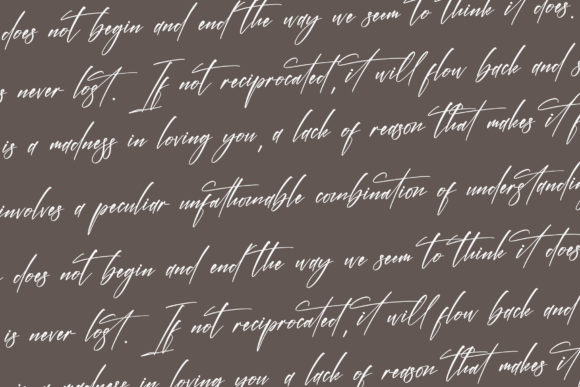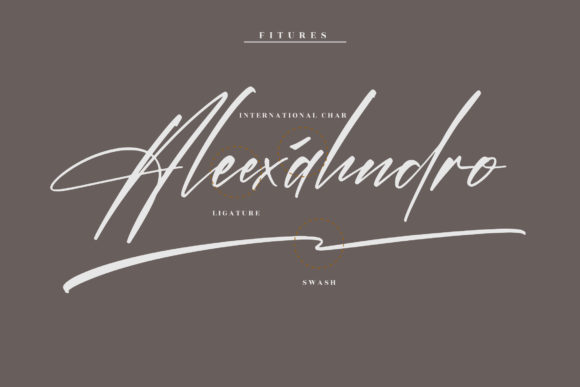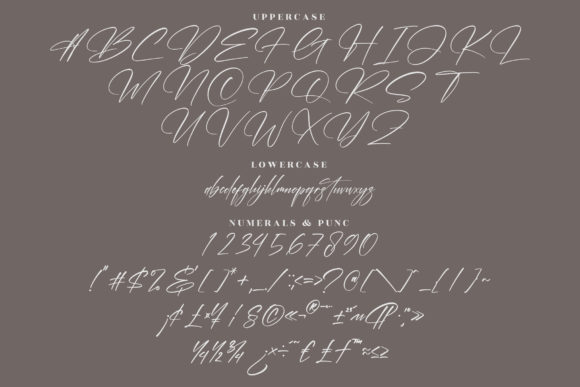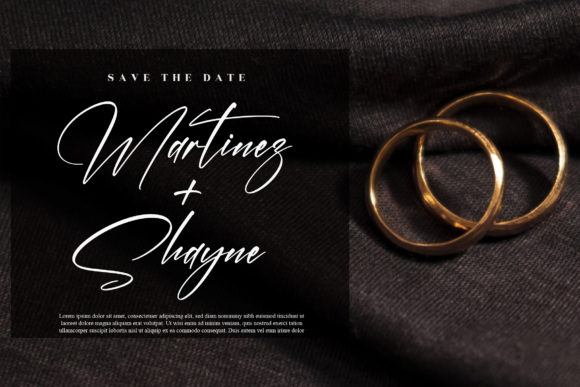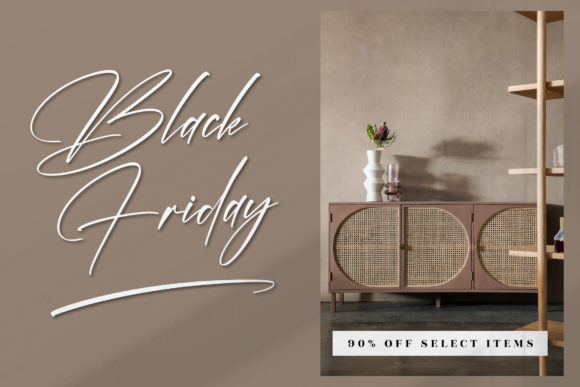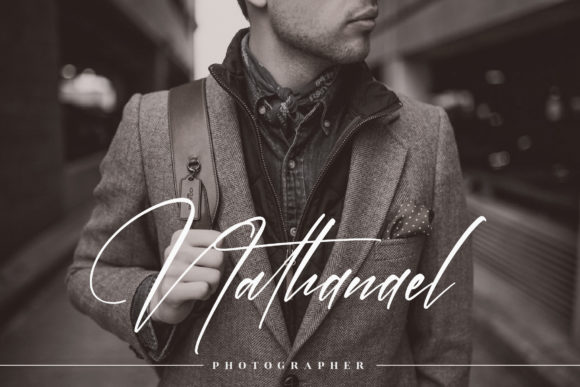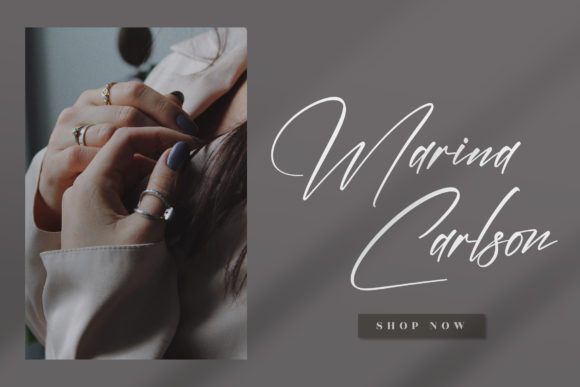
Thunderbold Signature Font
About Thunderbold Signature Font
Thunderbold Signature feels equally charming and elegant. It looks stunning on wedding invitations, thank you cards, quotes, greeting cards, logos, business cards and every other design which needs a handwritten touch.